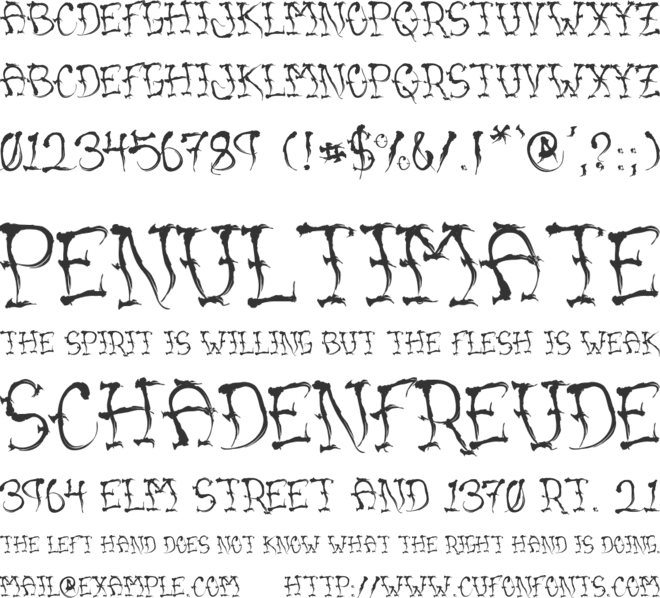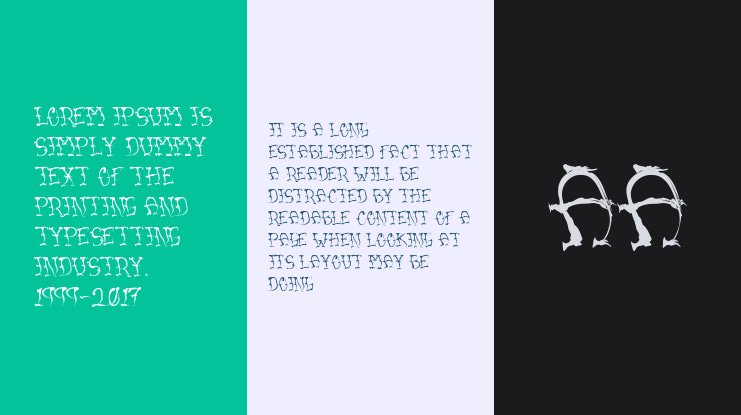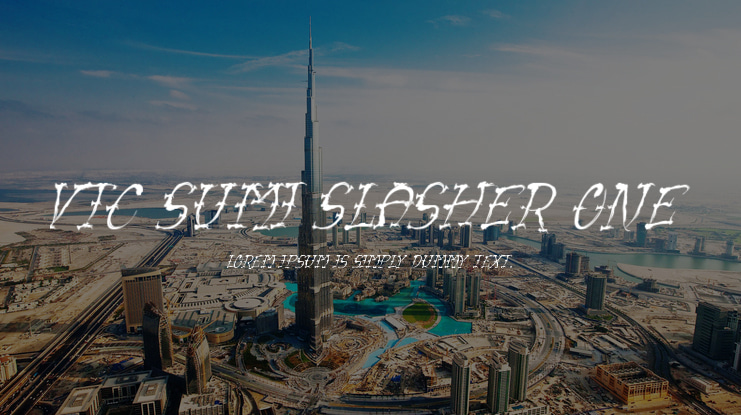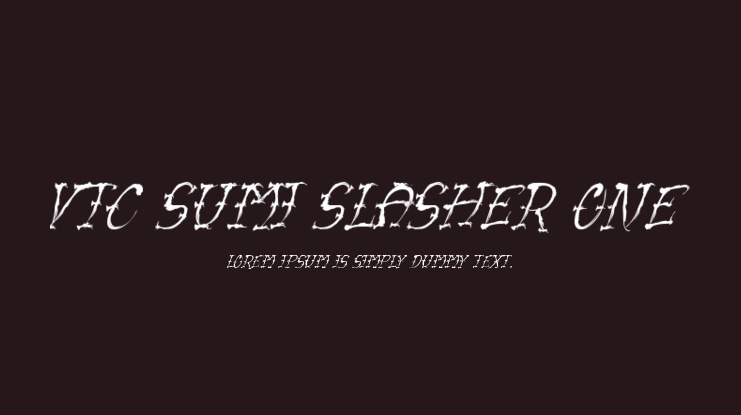
VTC Sumi Slasher One Font Family
WolfBainX-Larry E. Yerkes, Vigilante Typeface Corporation.
This is just a simple down and dirty brushed typeface I was messing with and having some fun with in illustrator. there are 7 faces to this set all different and all with complete extended character sets!